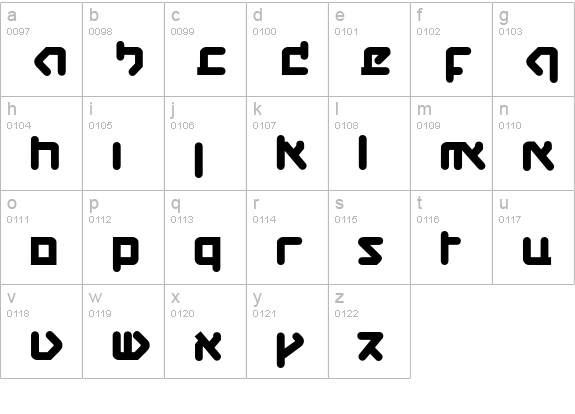
CQN-Molecular-ThermoBold Font Details
CQN-Molecular-ThermoBold is a modern and sophisticated font designed for those seeking a sleek and professional look for their projects. With its bold and sharp lettering, this font exudes confidence and elegance. Perfect for a variety of design purposes, from branding to editorial design, this font will make your text stand out with its unique style. What sets CQN-Molecular-ThermoBold apart is its versatility and readability. Whether used for headlines, body text, or any other type of design element, this font delivers a clean and polished look that is sure to impress. The geometric shapes and precise lines of this font give it a futuristic and high-tech feel, making it ideal for projects that require a modern touch. And the best part? CQN-Molecular-ThermoBold is completely free to download at FontsMarket.com. Simply head over to the website and grab this stylish font for your next project. Don't miss out on the opportunity to enhance your designs with this sleek and eye-catching typeface.